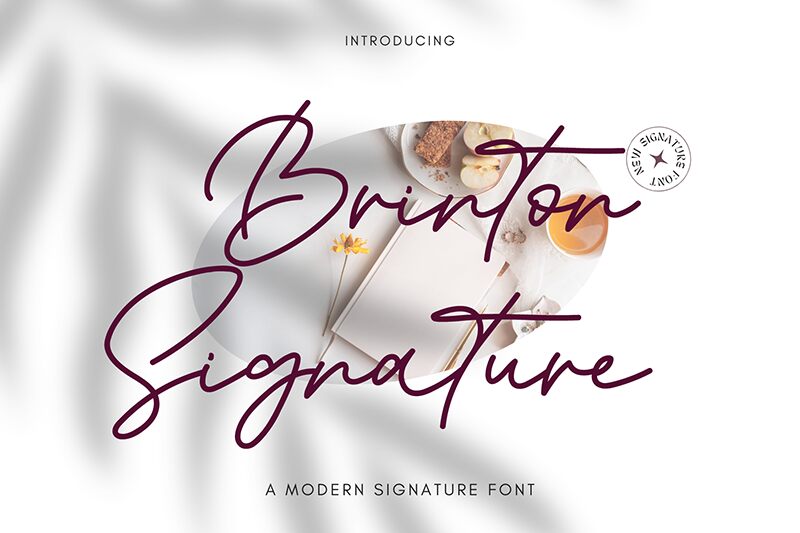
Brinton Signature is a handwritten script font by Ibrahima Studio. It’s a free font inspired by natural, stylish, and elegant hand-lettering with a fluid movement. The font’s smooth curves, graceful lines, and artistic flair allow it to capture the beauty of a signature writing style.
Contemporary design and calligraphic characters deviate from the geometric to the organic and combine for a luxury look that leaves long-lasting impressions.
The Brinton Signature has potential in branding projects, business cards, social media posts, and promotional material for fashion and lifestyle brands. It works on websites, invitations, product packaging, advertisements, and packaging labels. The versatility and creativeness with which it can be used make it an appealing typeface for marketing agencies and independent artists alike.